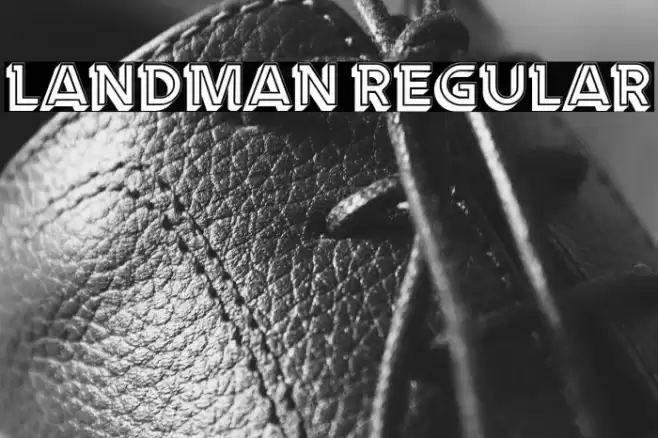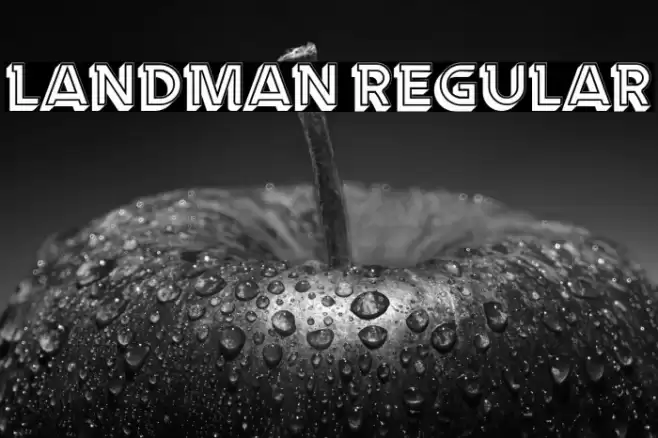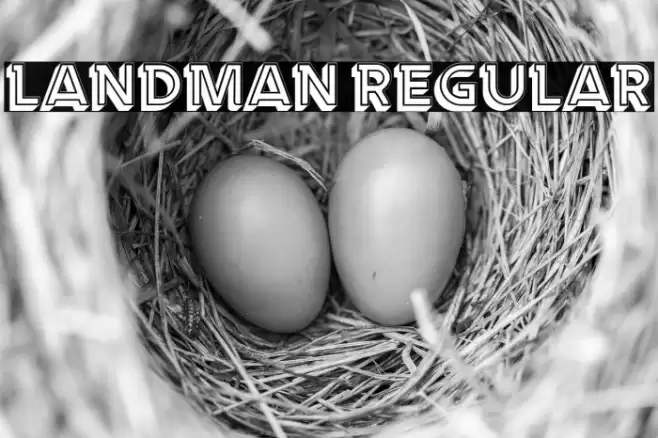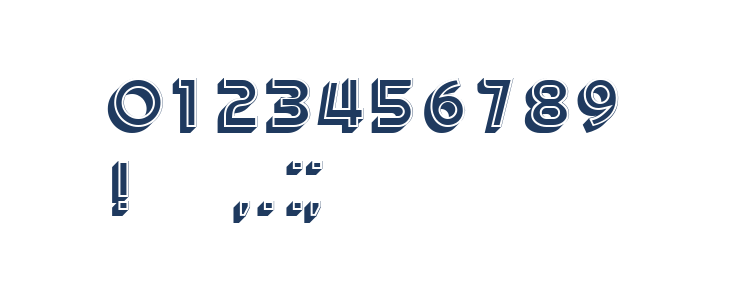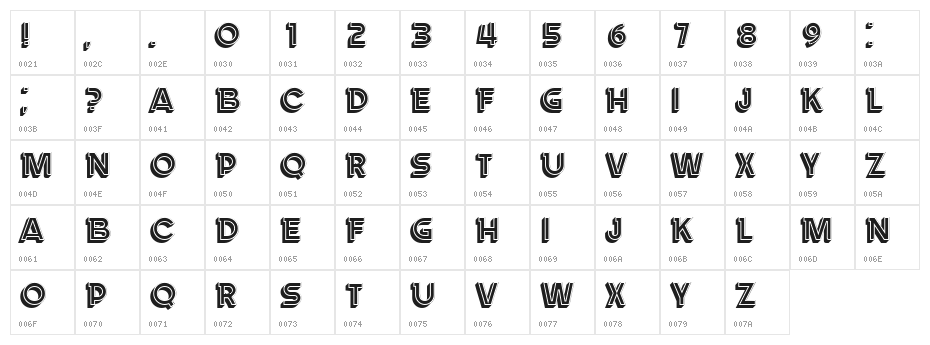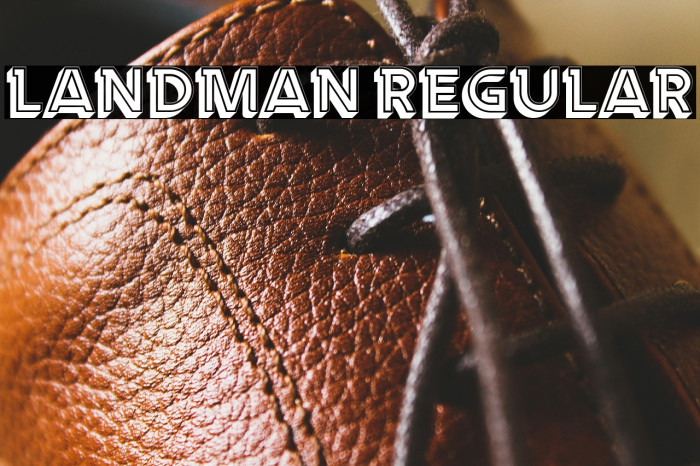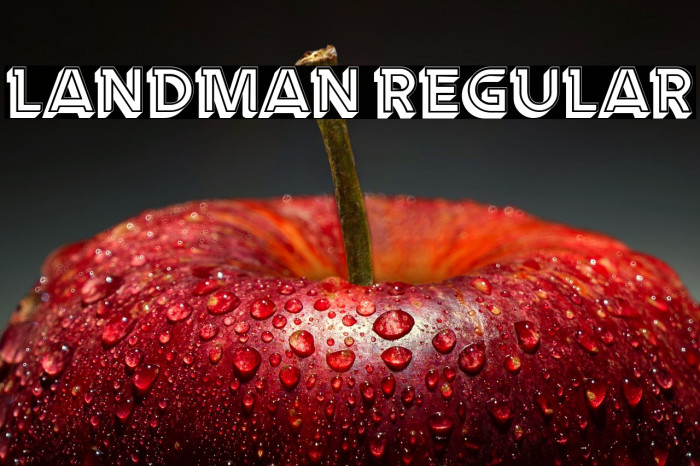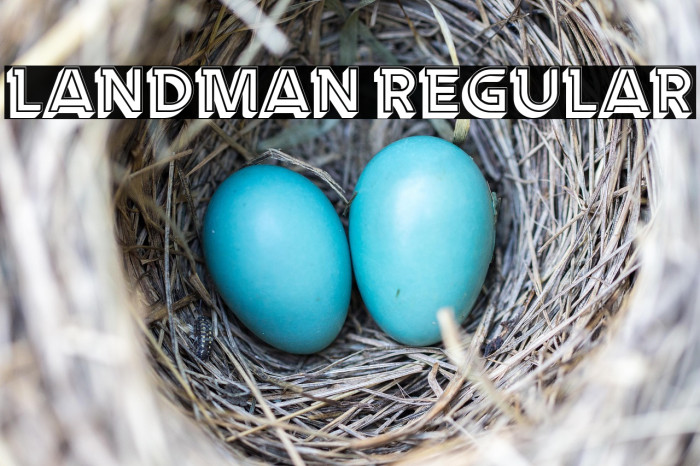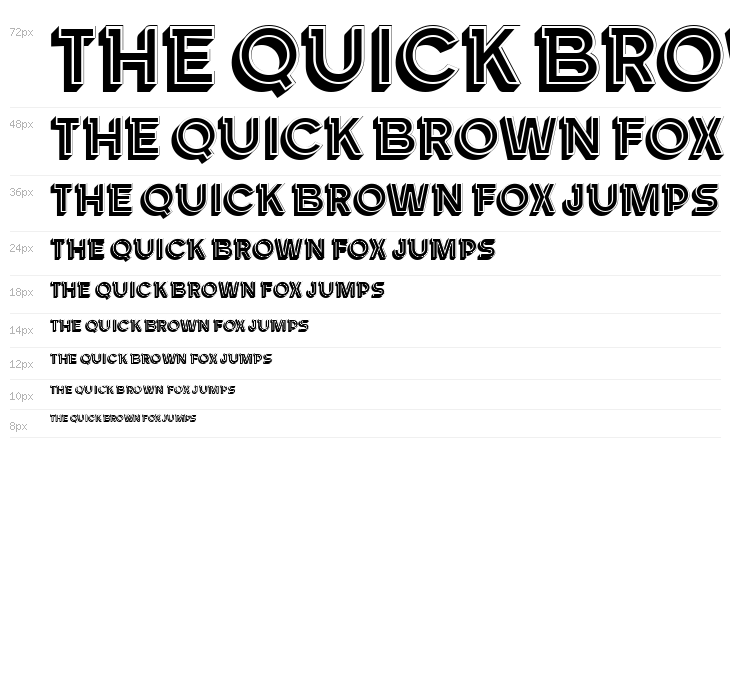
Landman Regular Font
Landman Regular Description
This font features a bold, geometric design with a strong 3D effect, giving it a striking and modern appearance. The characters are uppercase and numerals, with a shadow effect that adds depth and dimension. The style is reminiscent of vintage signage, yet it maintains a contemporary edge. The font's thick strokes and angular lines create a sense of strength and stability, making it ideal for impactful headlines or branding. The spacing between characters is balanced, ensuring readability while maintaining its bold aesthetic.
A bold, geometric font with a 3D shadow effect, perfect for impactful designs from Uncategorized fonts.
- Proposed Projects: Ideal for posters, logos, branding, and any design requiring a strong visual impact.